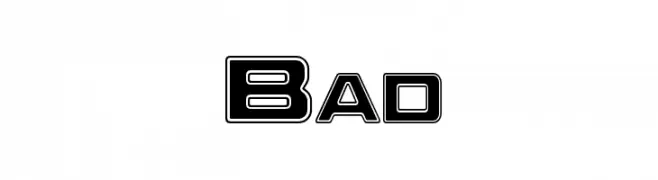
A bold, geometric font with a strong, block-like appearance.
A bold, 3D geometric font with an industrial and futuristic style.
A bold, 3D geometric font with an italic slant, ideal for dynamic and modern designs.
A bold, futuristic font with a chrome-like, layered design.
A bold, futuristic italic font with a chrome-like, layered design.
A bold, condensed font with a geometric and modern style.
A bold, condensed, and italicized font with a geometric and modern style.
A bold, geometric font with sharp, angular characters.
A bold, expanded, and italicized geometric font with a modern, futuristic style.